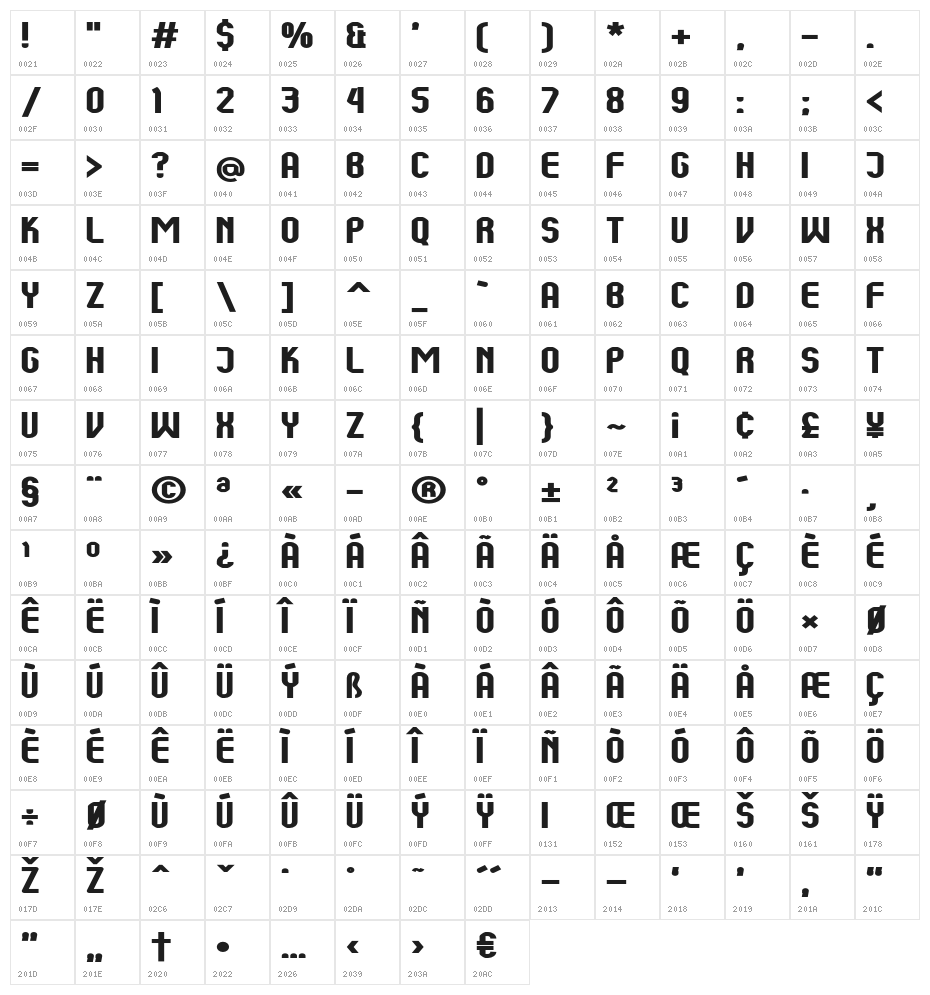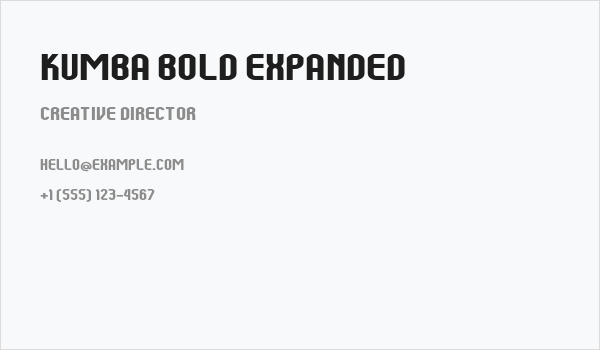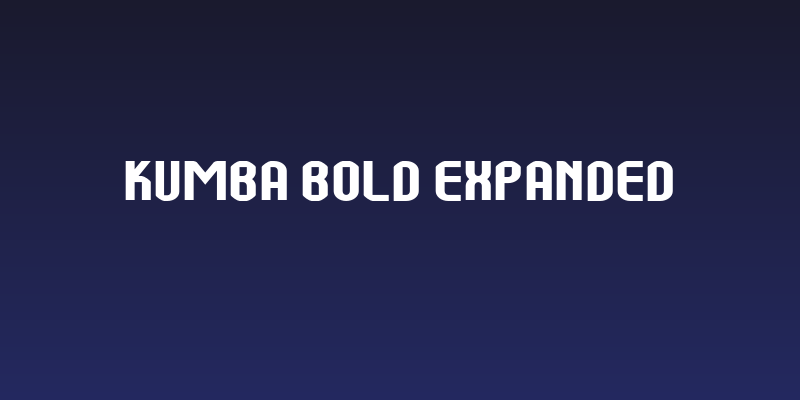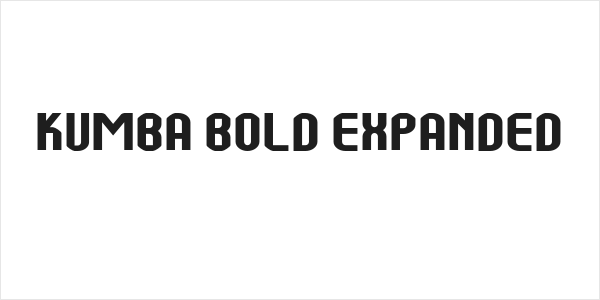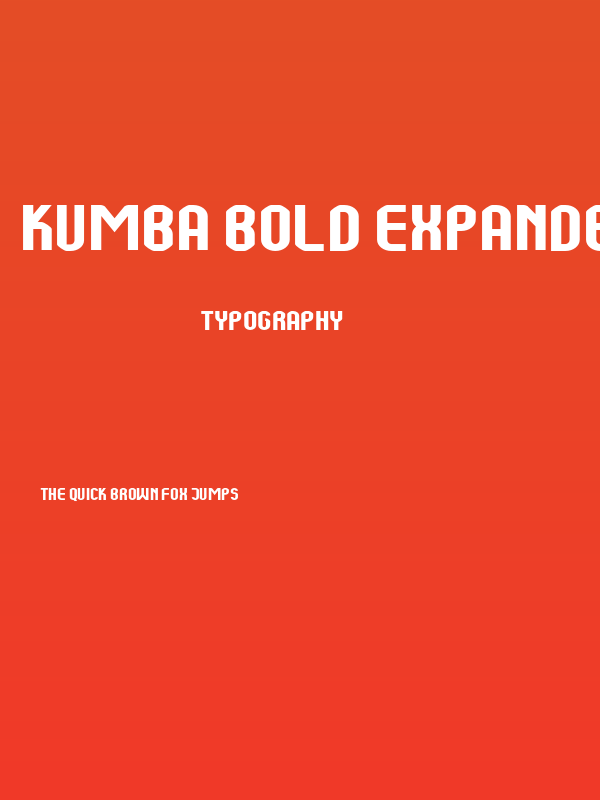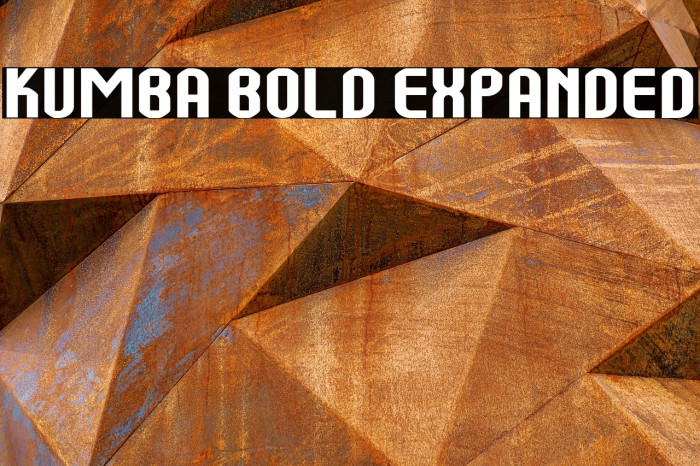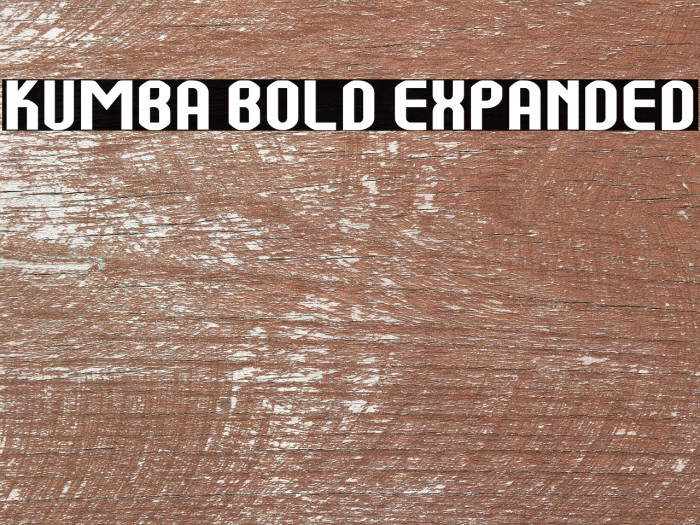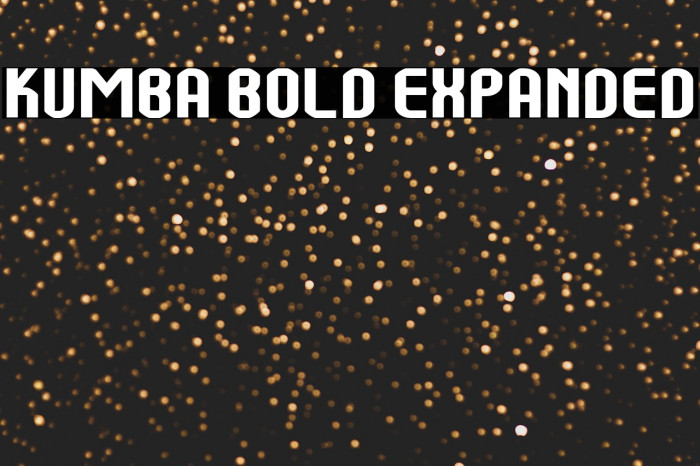
Kumba Bold Expanded Font
Kumba Bold Expanded Description
This font features a bold and expanded style, characterized by its strong geometric shapes and uniform stroke width. The uppercase letters are particularly striking, with a modern and assertive appearance. The lowercase letters maintain the same boldness, ensuring consistency throughout the typeface. Numbers and special characters are designed to match the overall aesthetic, providing a cohesive look. The font's expanded width allows for excellent readability, making it suitable for various design applications. Its bold nature makes it ideal for grabbing attention, while the expanded form adds a unique touch to any project.
| Proposed Projects | Ideal for headlines, posters, branding, and any project requiring a strong visual impact. |